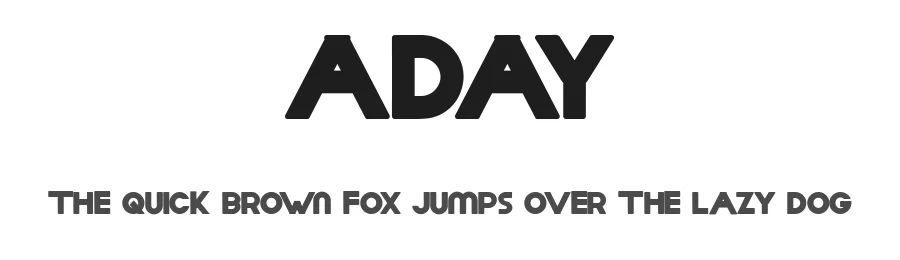
About Fingbanger Font
| Designer | Andrew McCluskey |
Fingbanger Font is a versatile sans-serif font that works for both headings and body text. Pair it with a contrasting serif or slab serif font to add visual interest and a clear distinction between titles and body copy.